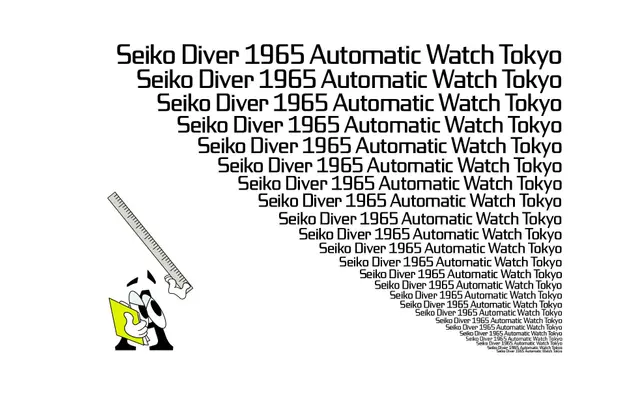
JT Multona
A square grotesque display typeface tracing its lineage to early 20th-century types such as Gigant, offered in five weights with matching italics and variable font support.
Rooted in the square grotesque genre that appeared on shop windows, bicycle frames and kitchen equipment throughout the 20th century, JT Multona draws direct inspiration from Gigant, a 1920s typeface by Genzsch & Heyse. Five weights run from Regular to Black, each with a companion italic, and the family ships as a variable font with optical sizing. Cyrillic support broadens its reach beyond Latin-script applications.
JT Multona belongs to the square grotesque tradition, characterised by squarish letter shapes and dual italic styles, rooted in early 20th-century display type genres such as Gigant by Genzsch & Heyse from the 1920s.